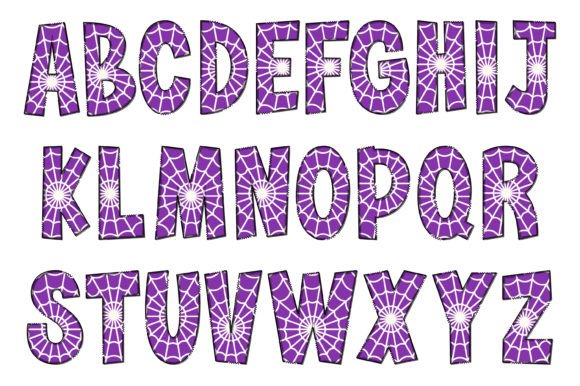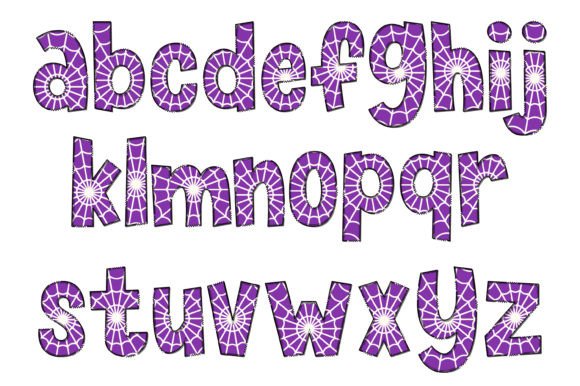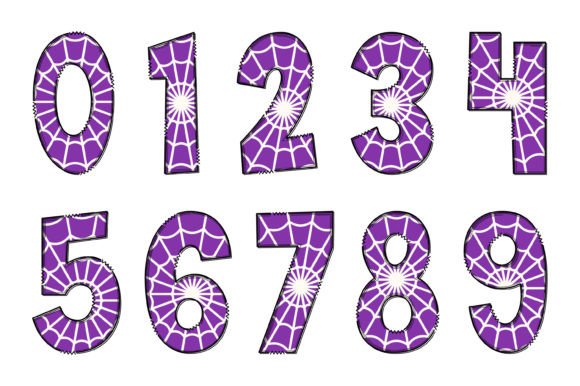
Cobweb Font: Adding a Touch of Whimsy to Your Designs
The Cobweb Font is a delightful addition to any designer’s toolkit, offering a playful and artistic feel that’s perfect for a variety of creative projects. This charming font is often used in designs that aim to convey a sense of fun and imagination, making it an excellent choice for children’s books, posters, invitations, greeting cards, and more.
The Power of Playful Typography in Design
When it comes to designing for young audiences, typography plays a crucial role in capturing their attention and imagination. Children’s books, in particular, rely heavily on fonts that are not only visually appealing but also easy to read. The Cobweb Font fits the bill perfectly, with its whimsical and colorful design that’s sure to engage young readers.
In addition to children’s books, this font is also well-suited for a range of other applications, including:
• Posters: Add a touch of playfulness to your poster designs with the Cobweb Font, making them perfect for advertising events, products, or services that appeal to a younger audience.
• Invitations: Create eye-catching invitations for parties, birthday celebrations, or other special events that are sure to delight your guests.
• Greeting cards: Add a personal touch to your greeting cards with the Cobweb Font, making them perfect for birthdays, holidays, or just to say hello.
Tips for Using the Cobweb Font in Your Designs
To make the most of the Cobweb Font, here are a few tips to keep in mind:
• Experiment with colors: The Cobweb Font is a color font, so don’t be afraid to get creative with different color combinations to bring your designs to life.
• Mix and match: Combine the Cobweb Font with other fonts to create a unique and visually appealing design.
• Play with sizes: Use the Cobweb Font in a range of sizes to add depth and interest to your designs.
The Cobweb Font is a versatile and playful font that’s perfect for designers and crafters looking to add a touch of whimsy to their designs. With its compatibility with popular design software and ease of use, this font is sure to become a favorite in your toolkit. Whether you’re designing children’s books, posters, invitations, or greeting cards, the Cobweb Font is an excellent choice for any project that requires a dash of creativity and fun.